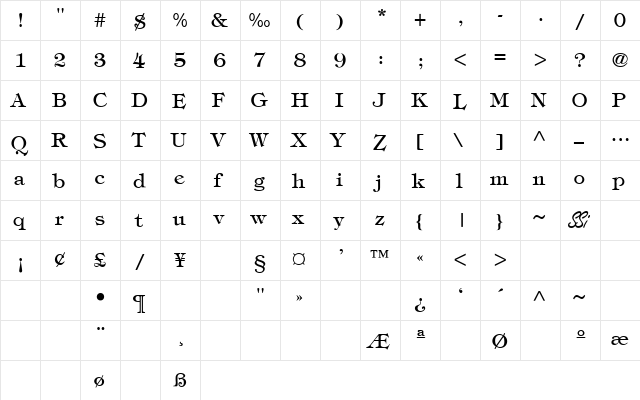
Sophisticate Light SSi Light
Design Context for Sophisticate Light SSi Typeface
Sophisticate Light SSi is a composed and adaptable typeface that performs quietly and consistently across a wide range of design contexts. Its slender proportions lend an understated elegance to any composition.